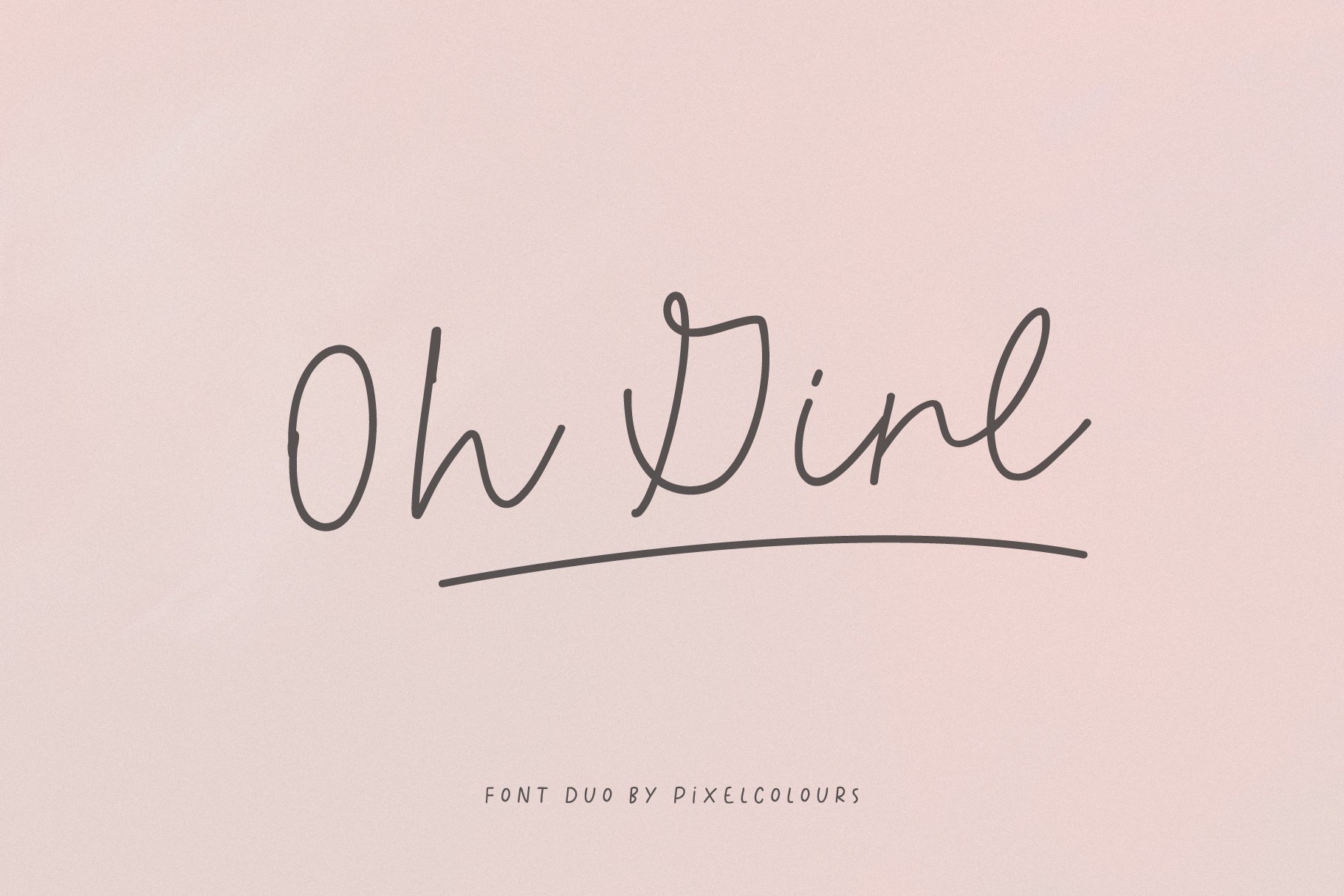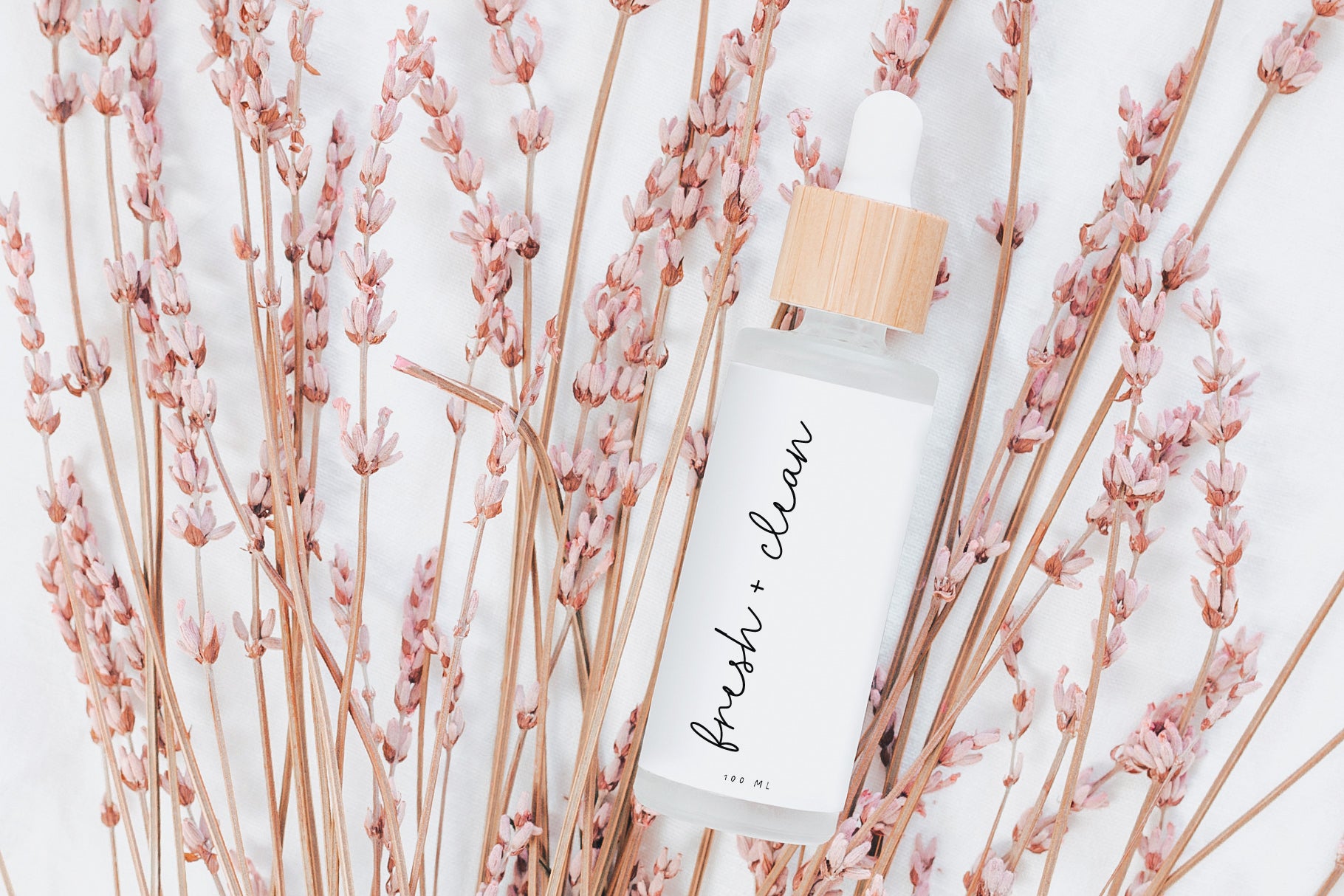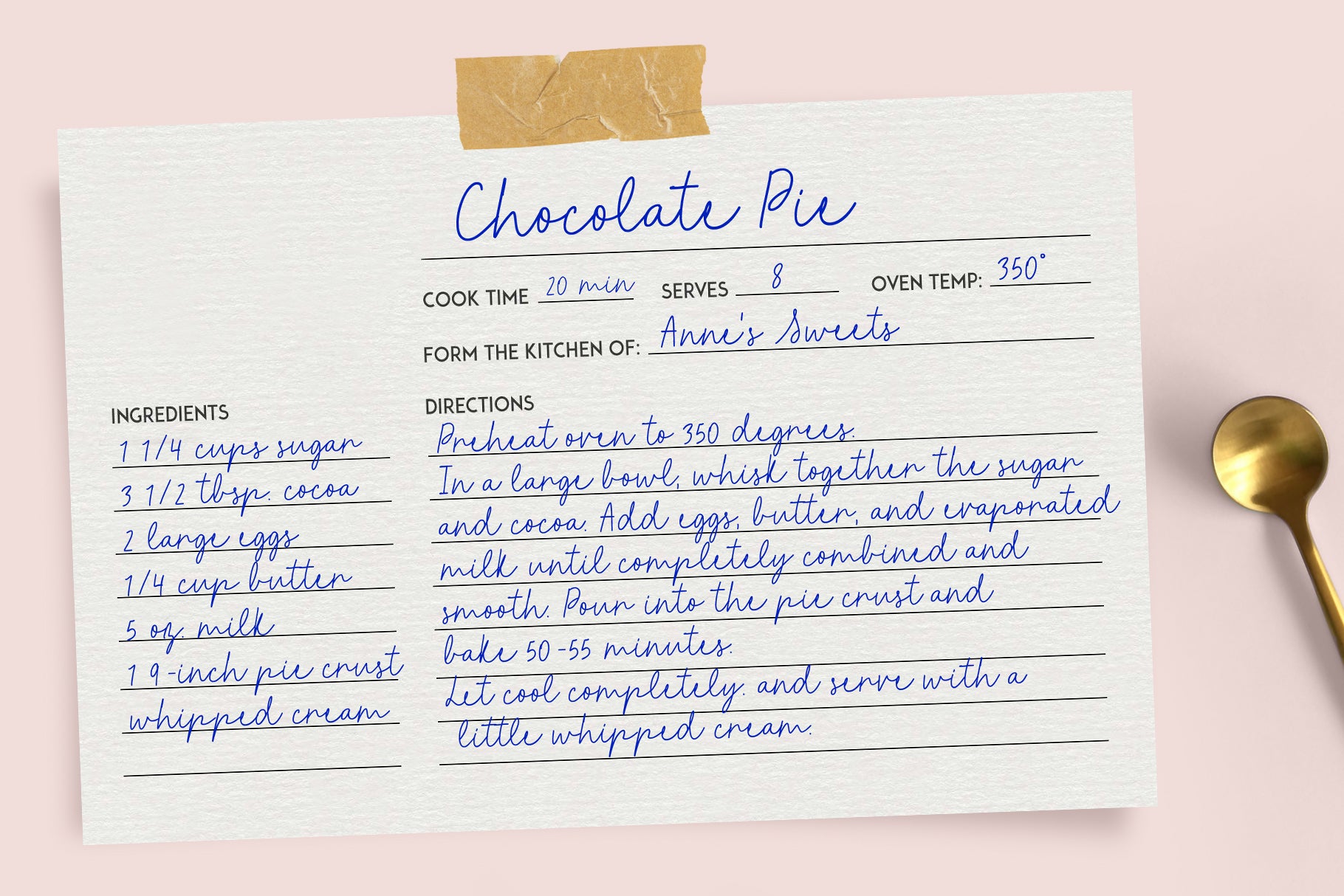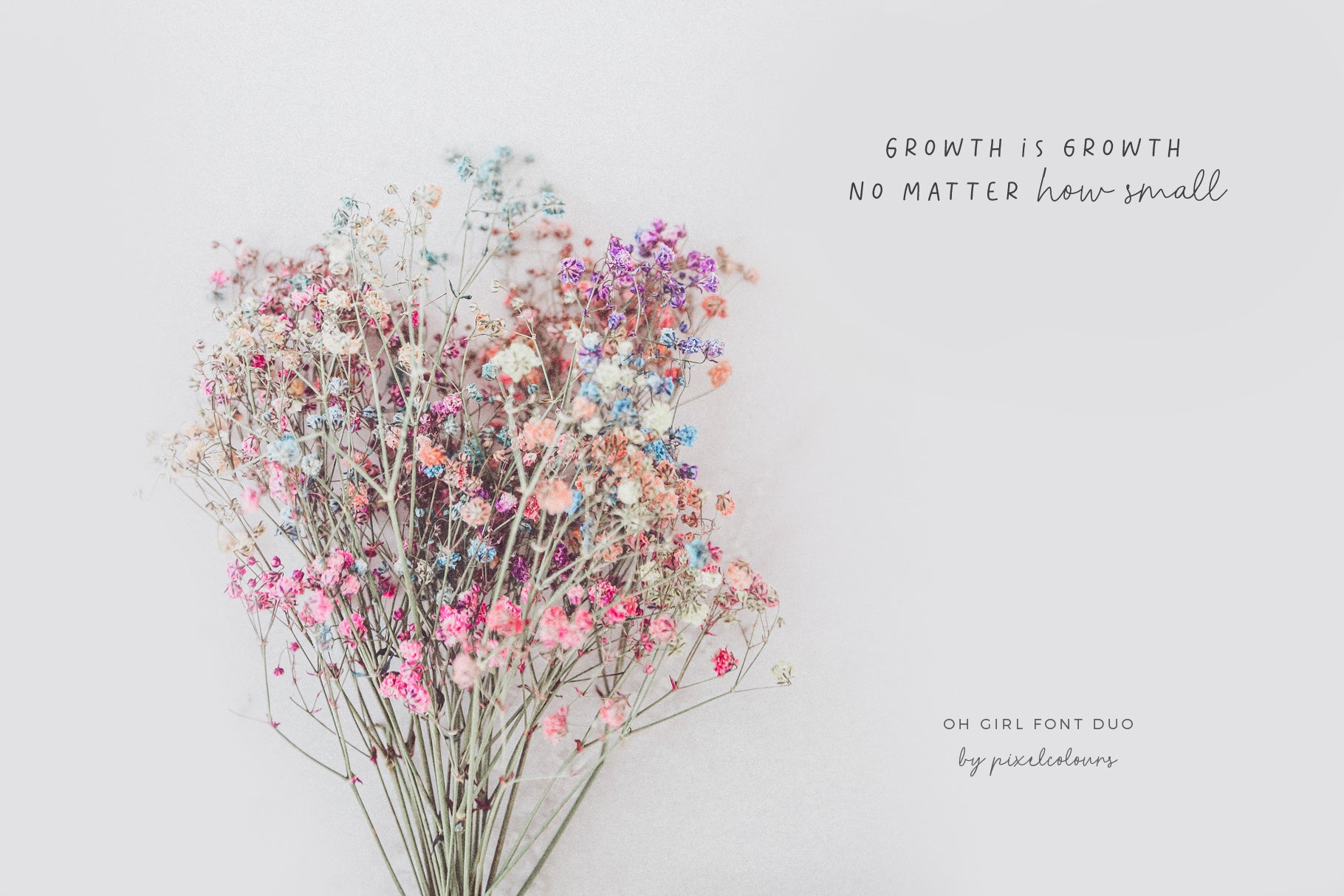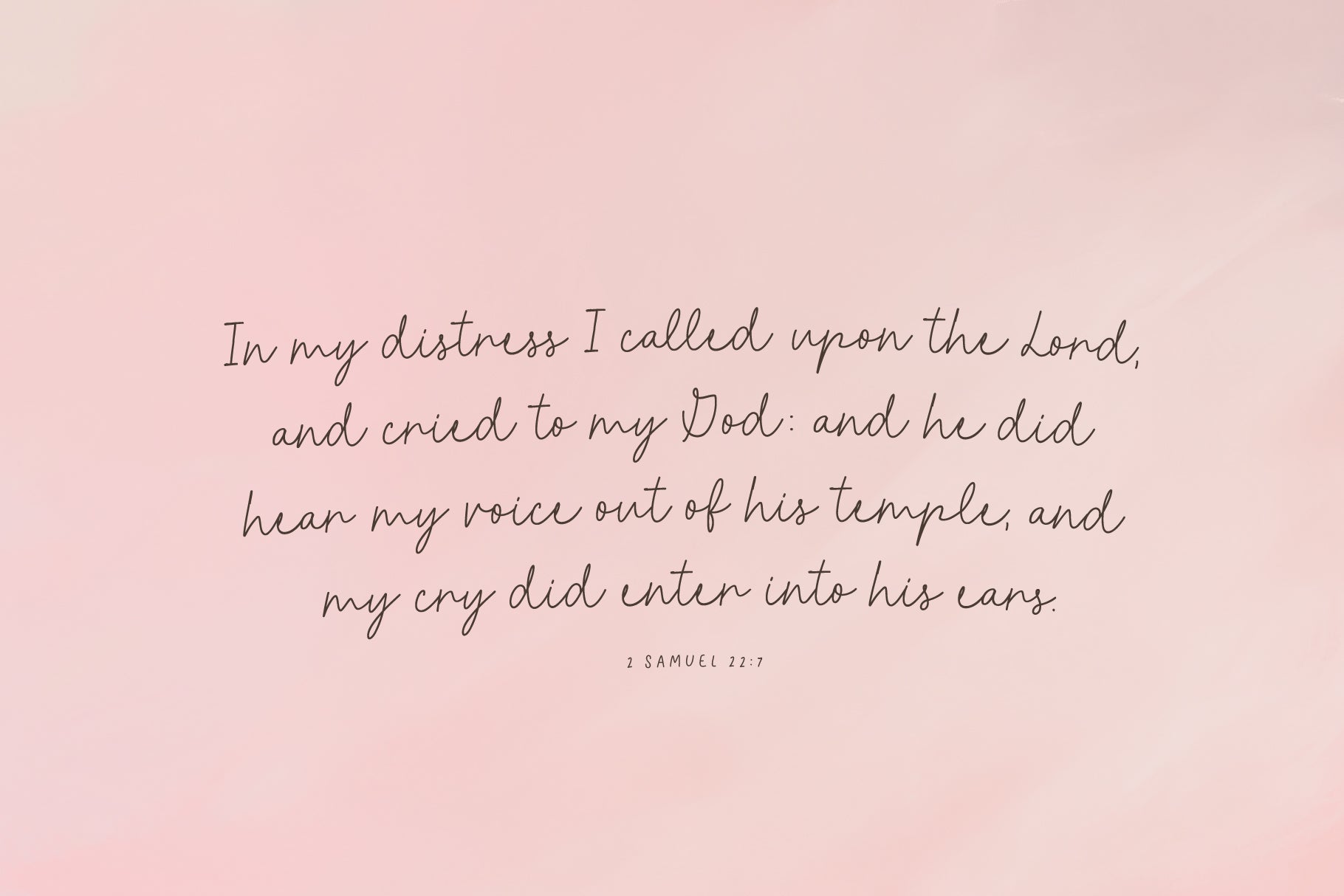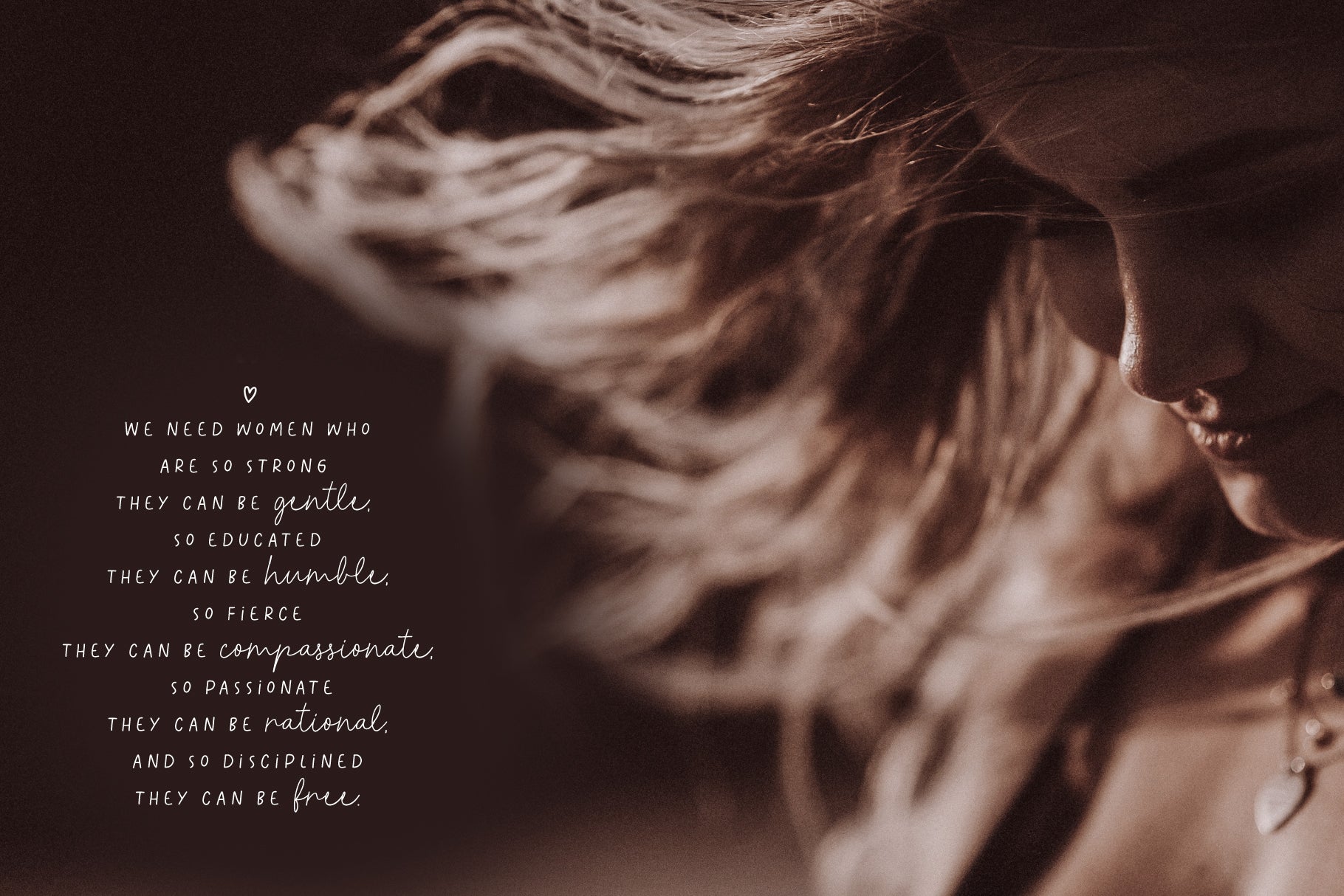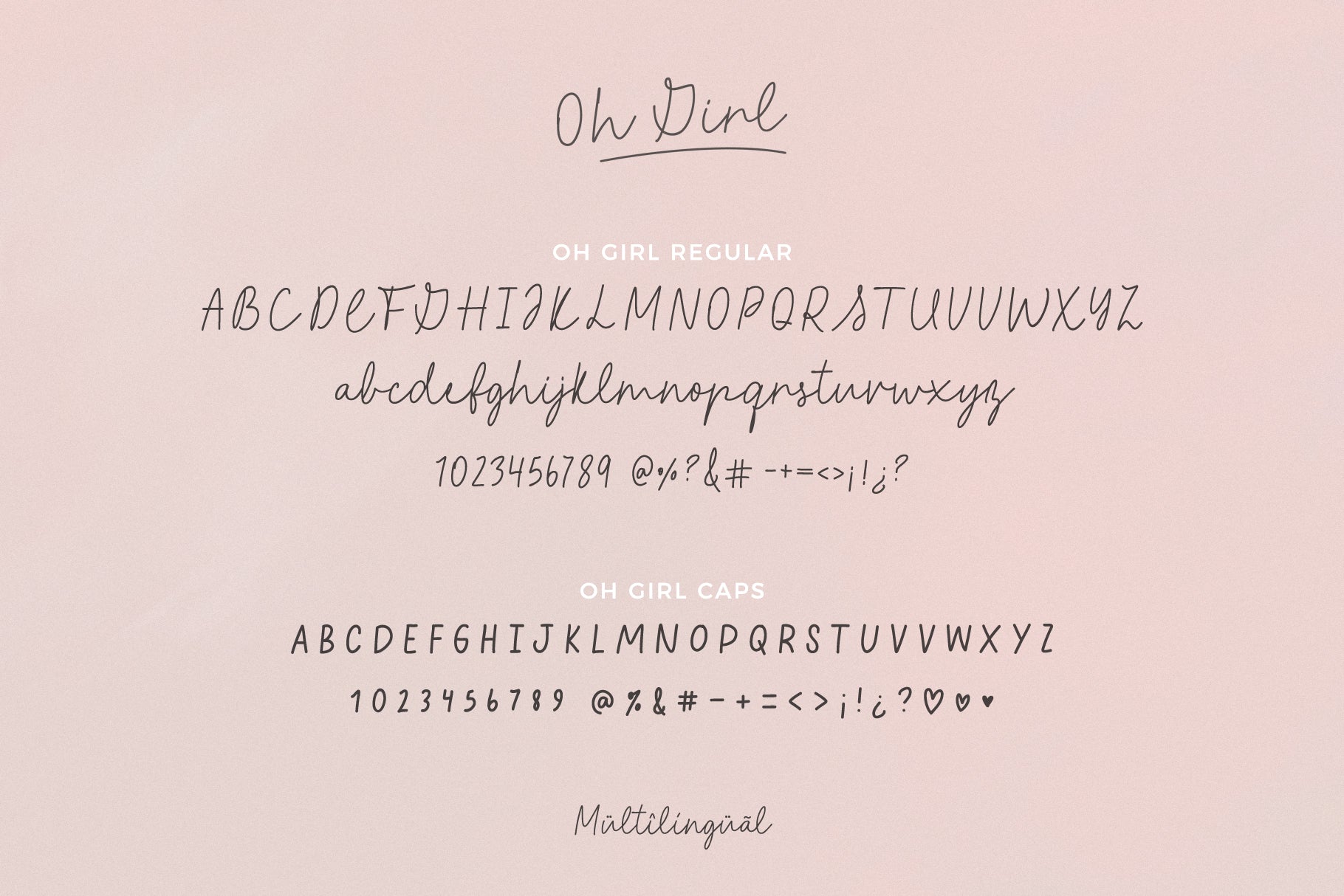
Oh Girl Script Font
Oh Girl is a script font and a sans serif font duo made for pairing, both with a girly handwritten look. Looks great on quotes and texts. Make cards, wedding invitations, social media posts, etc.
- Oh Girl: the script font that looks like handwritten
- Oh Girl Caps: the uppercase font to match the script